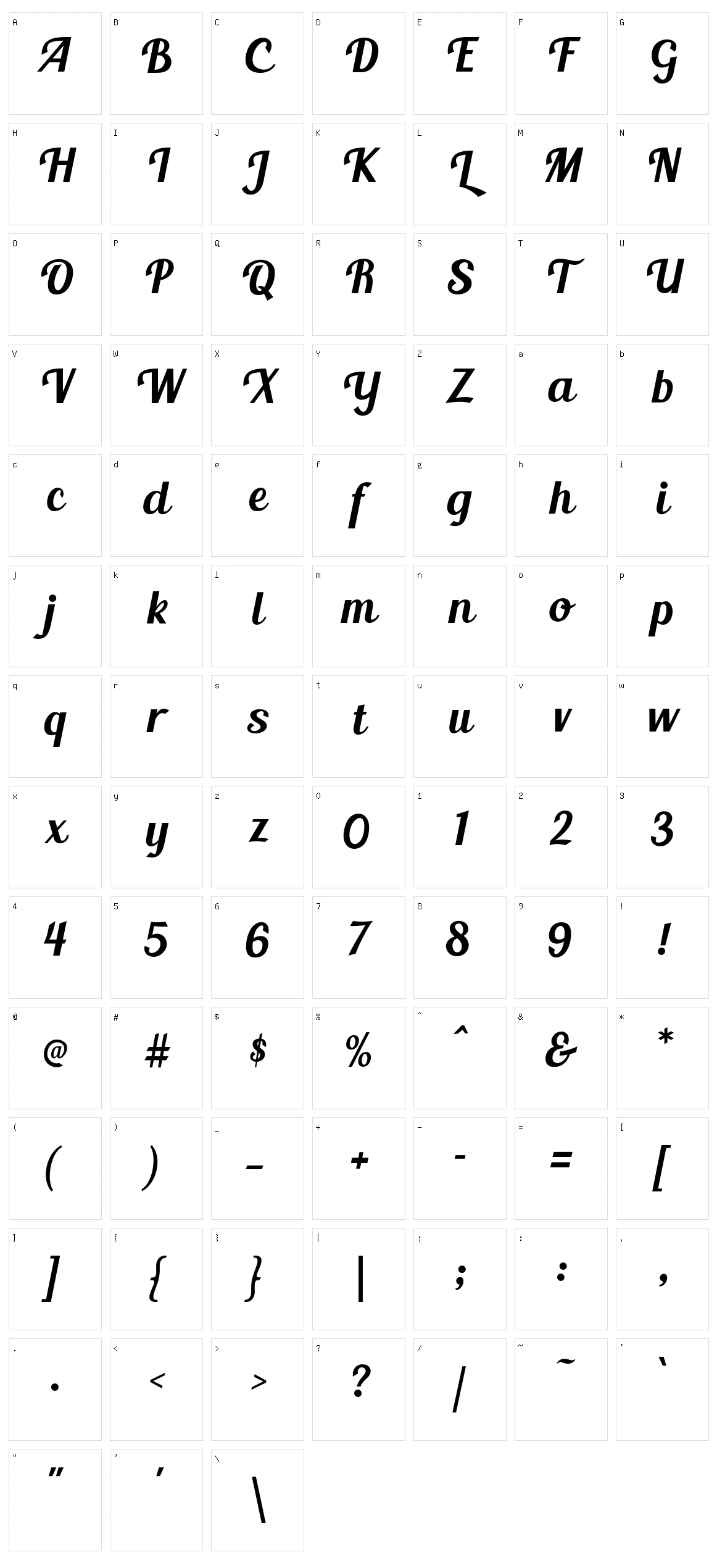
Blenda Script is a free experimental font inspired by lobster font, a bold vintage script.
can be used for various purposes. Such as news, posters, logos, badges etc.